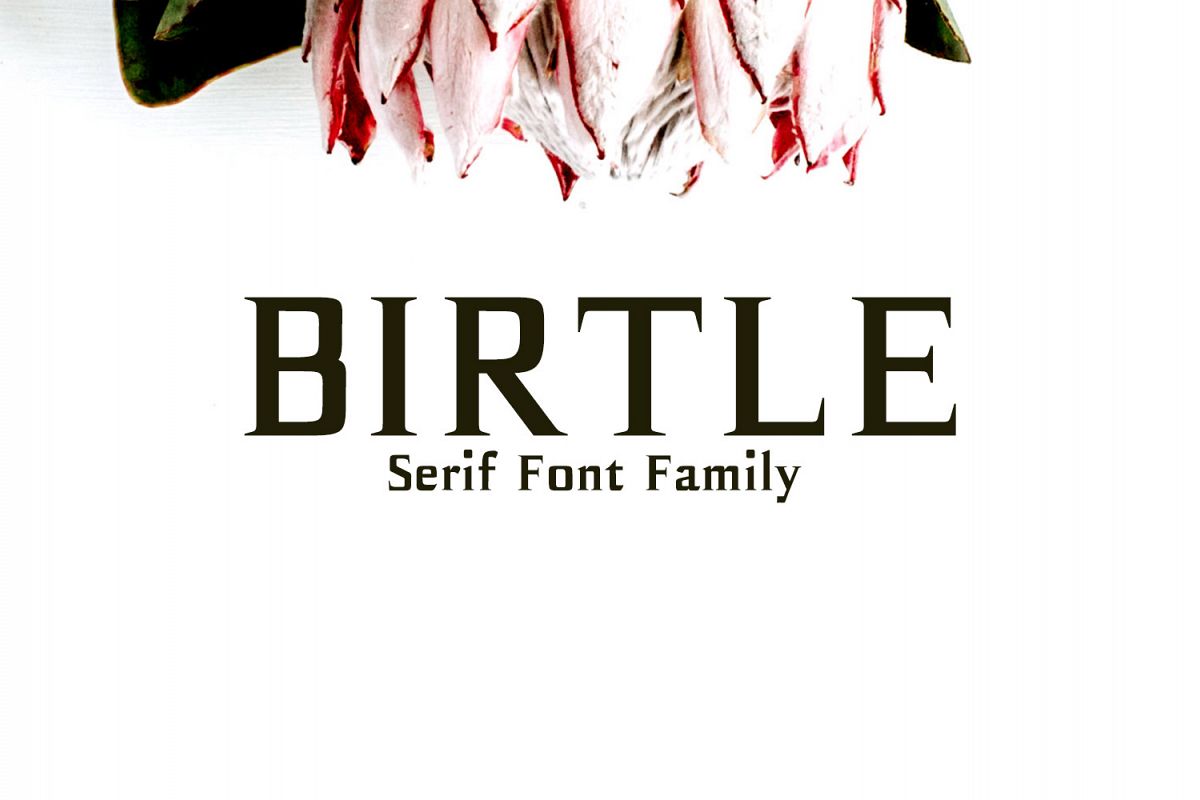
Birtle Serif Font Family
Birtle-Bold
Birtle-Distorted
Birtle-Regular
Birtle Serif Font Family is a decorative serif font family, which contains 3 weights and It features unique and modern serif look and feel. Perfect for gorgeous logos, titles, web layouts and branding. It looks gorgeous in all caps with a wide-set spacing if you want to try a classy look, or beautiful on its own in capital and lowercase letters for something completely timeless.
Included Features:
• Font Weight: Regular, Distorted and Bold
Birtle Font Features:
• Uppercase Multilingual Letters
• Lowercase Multilingual Letters
• Alternative